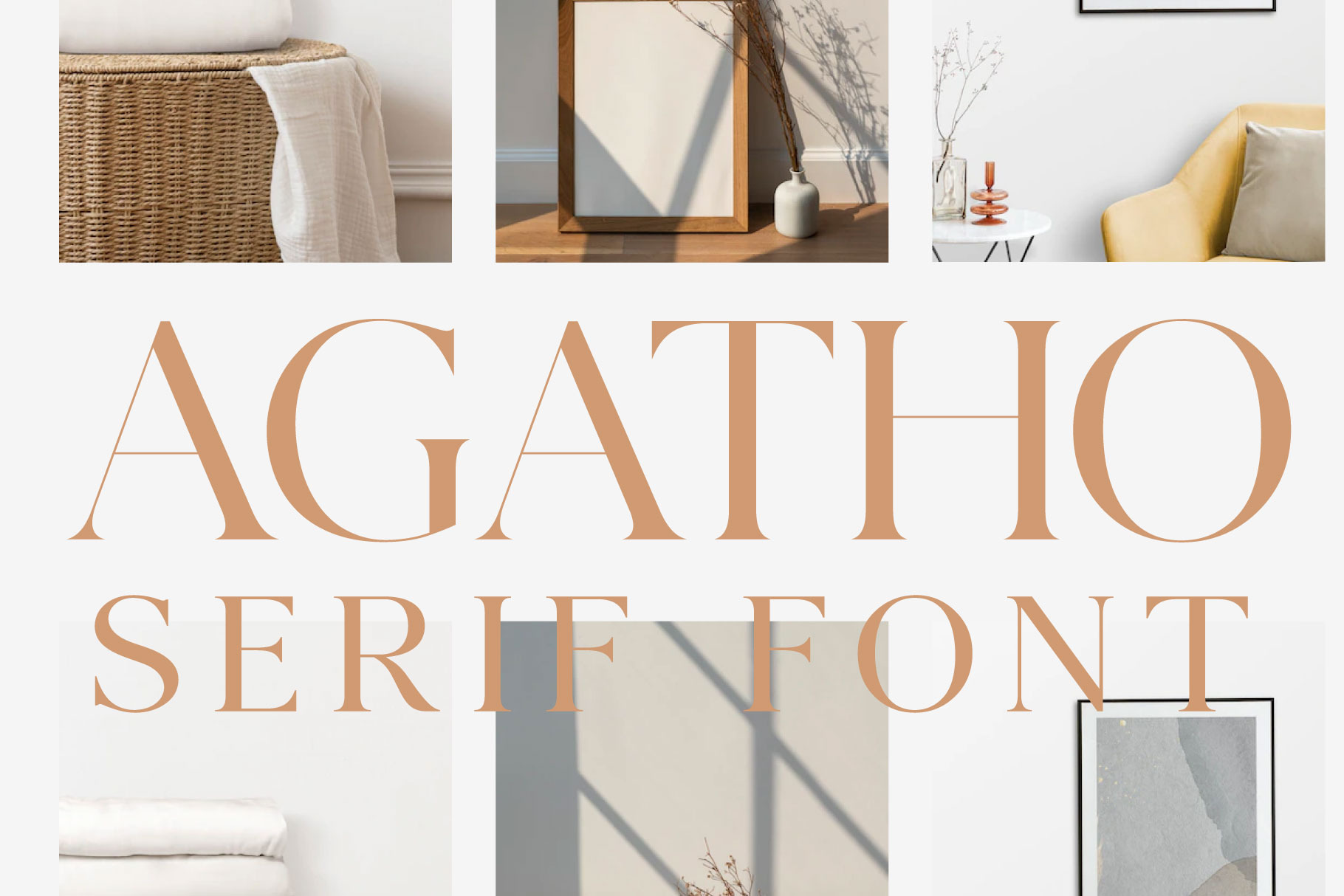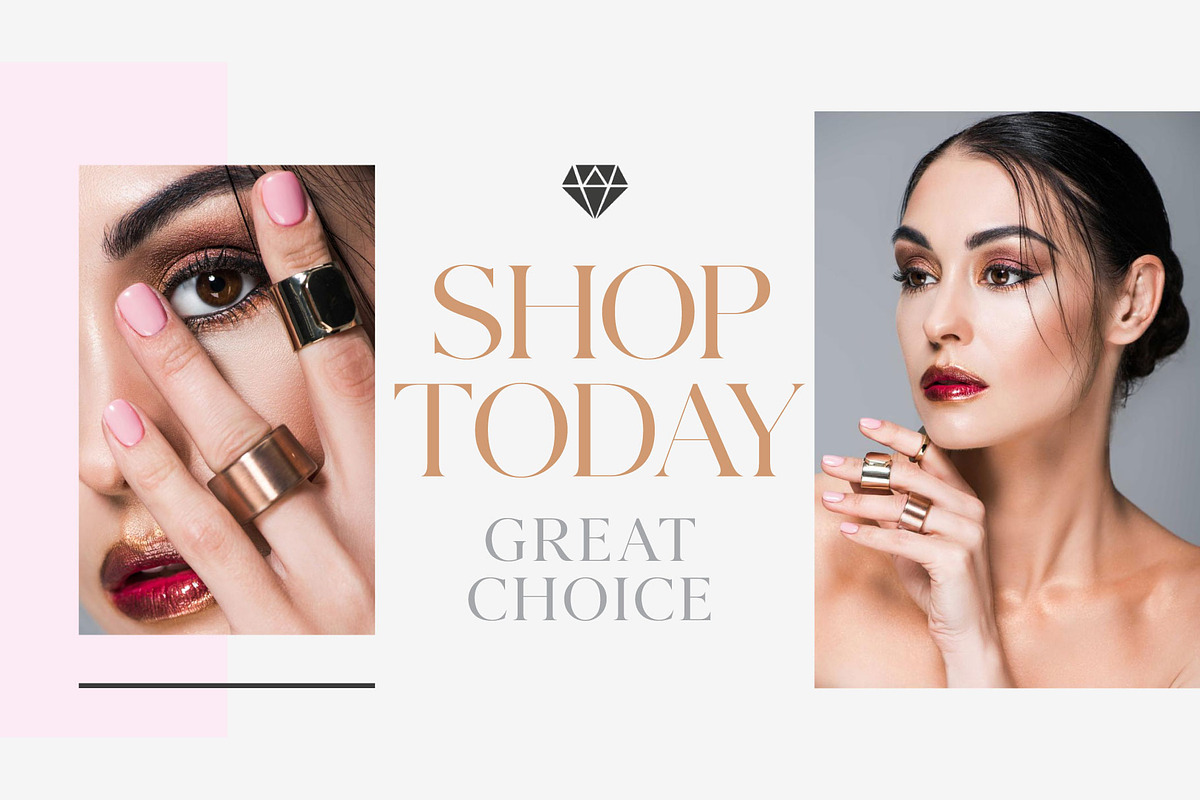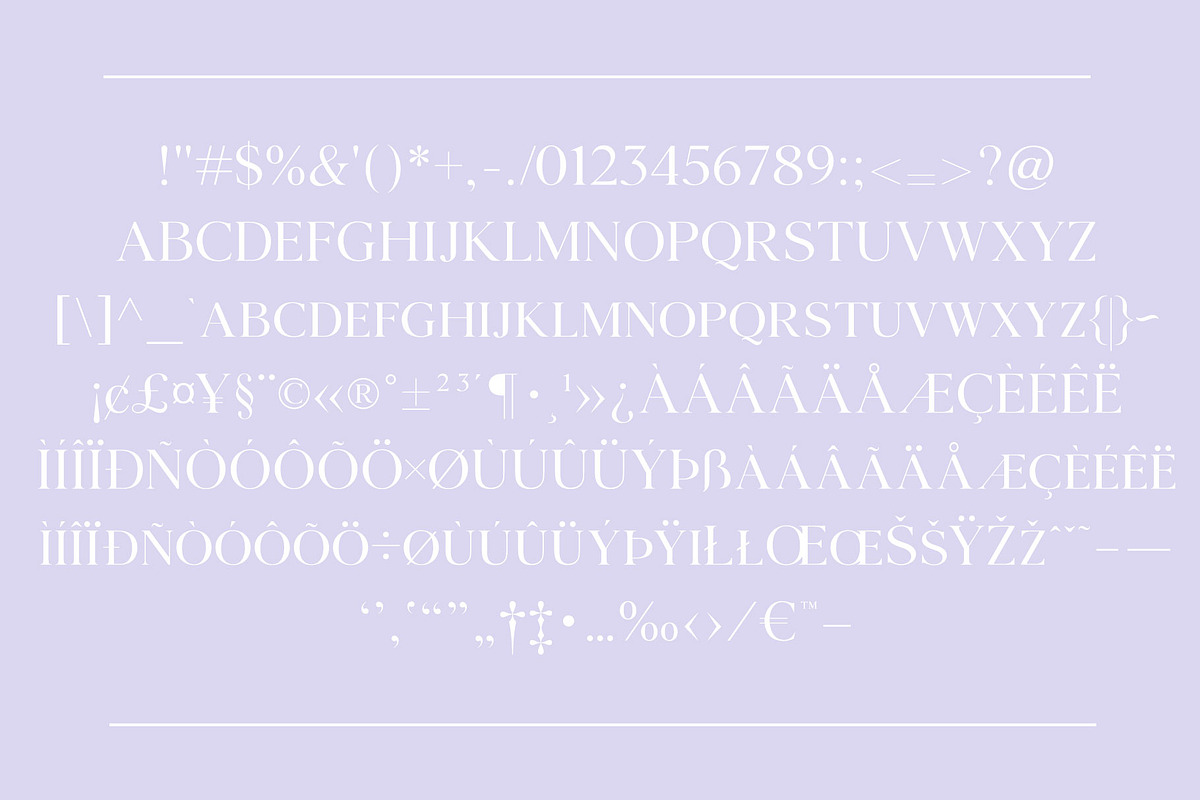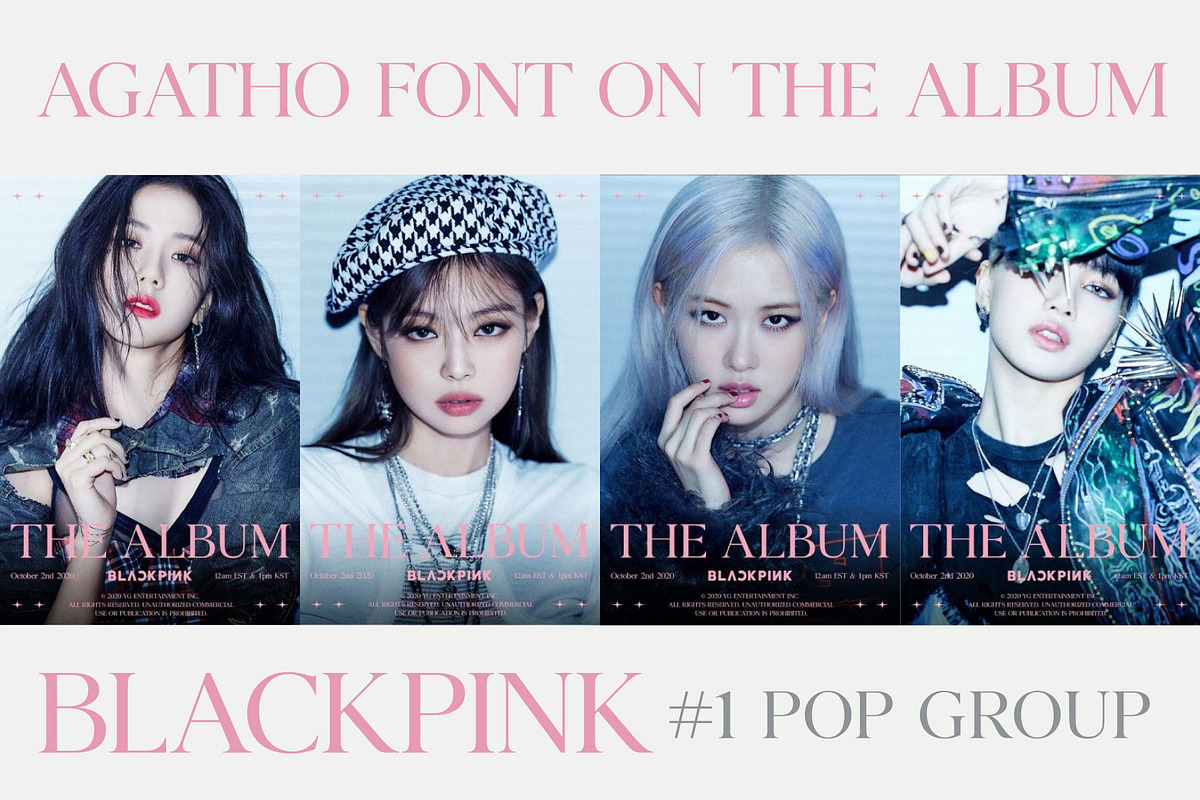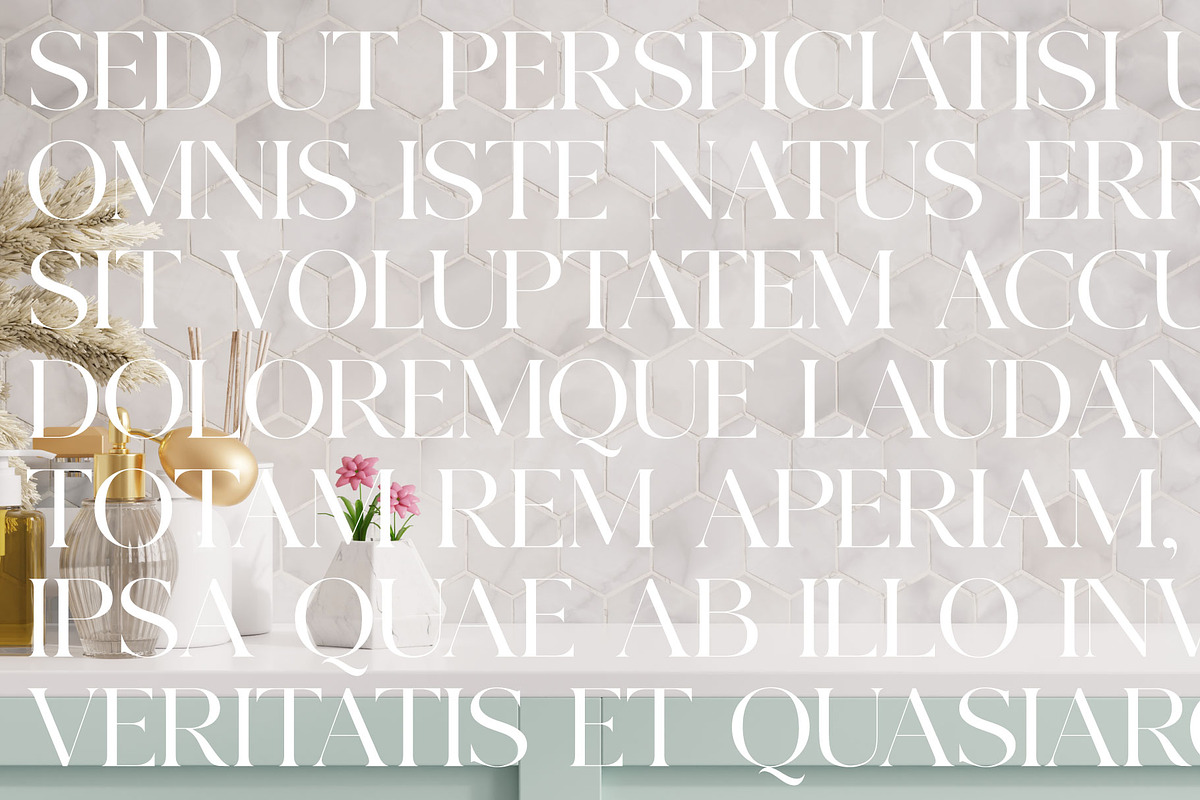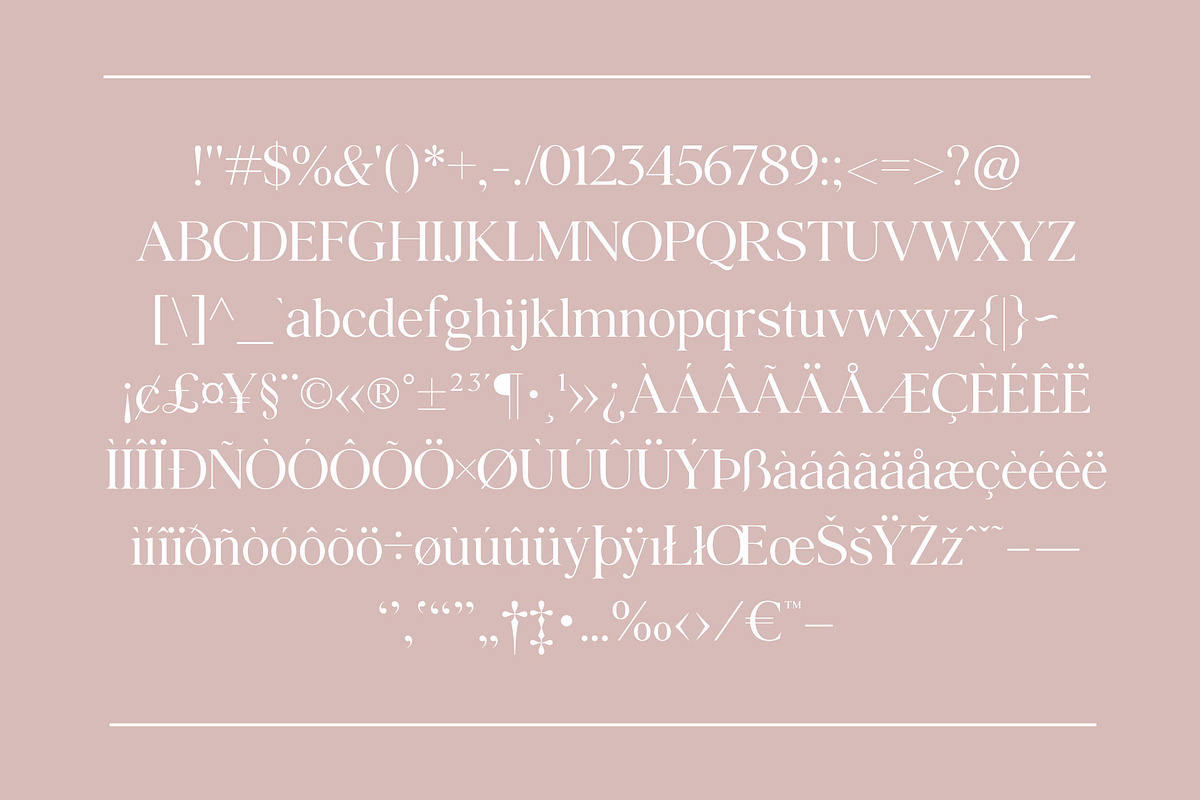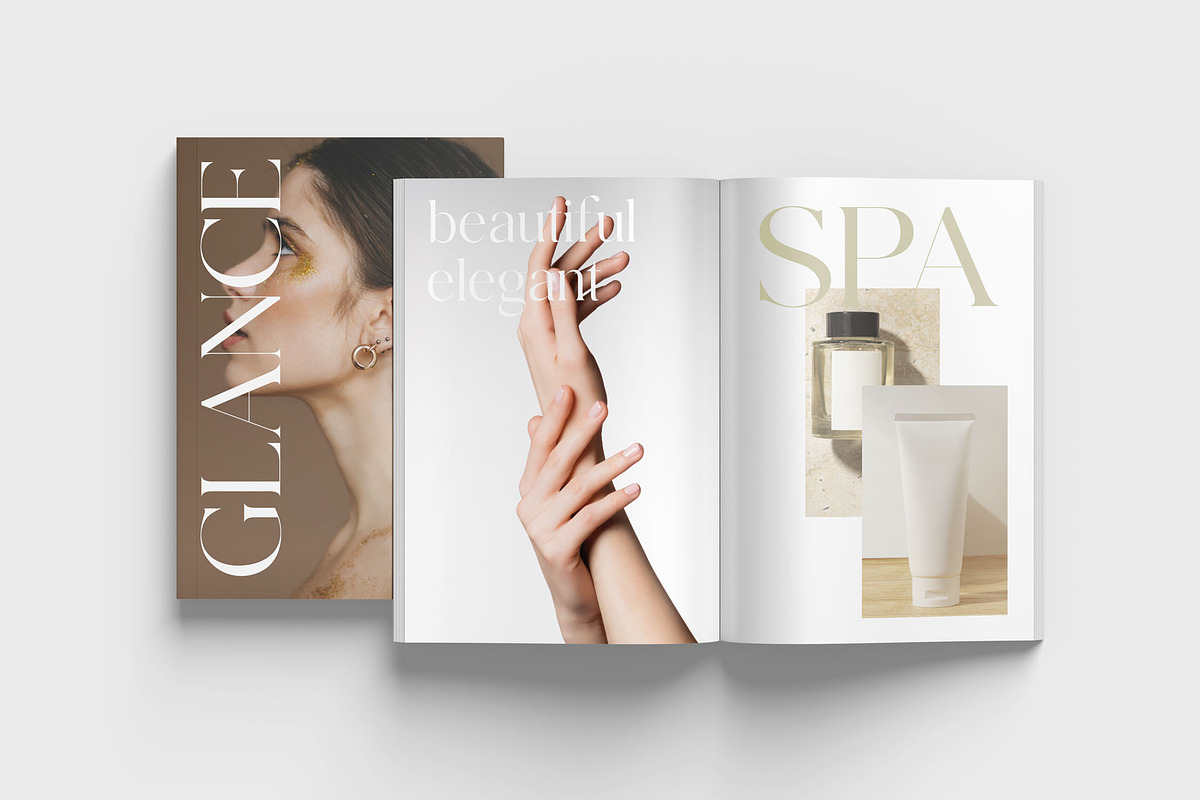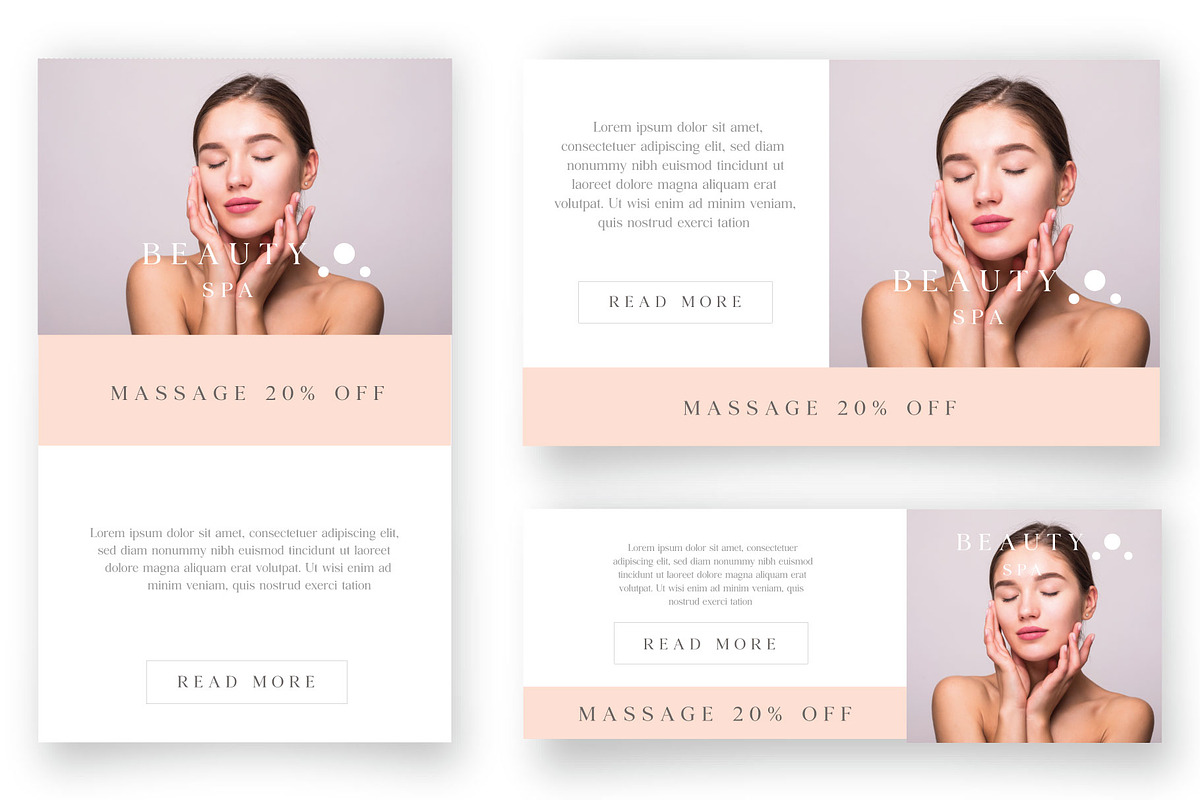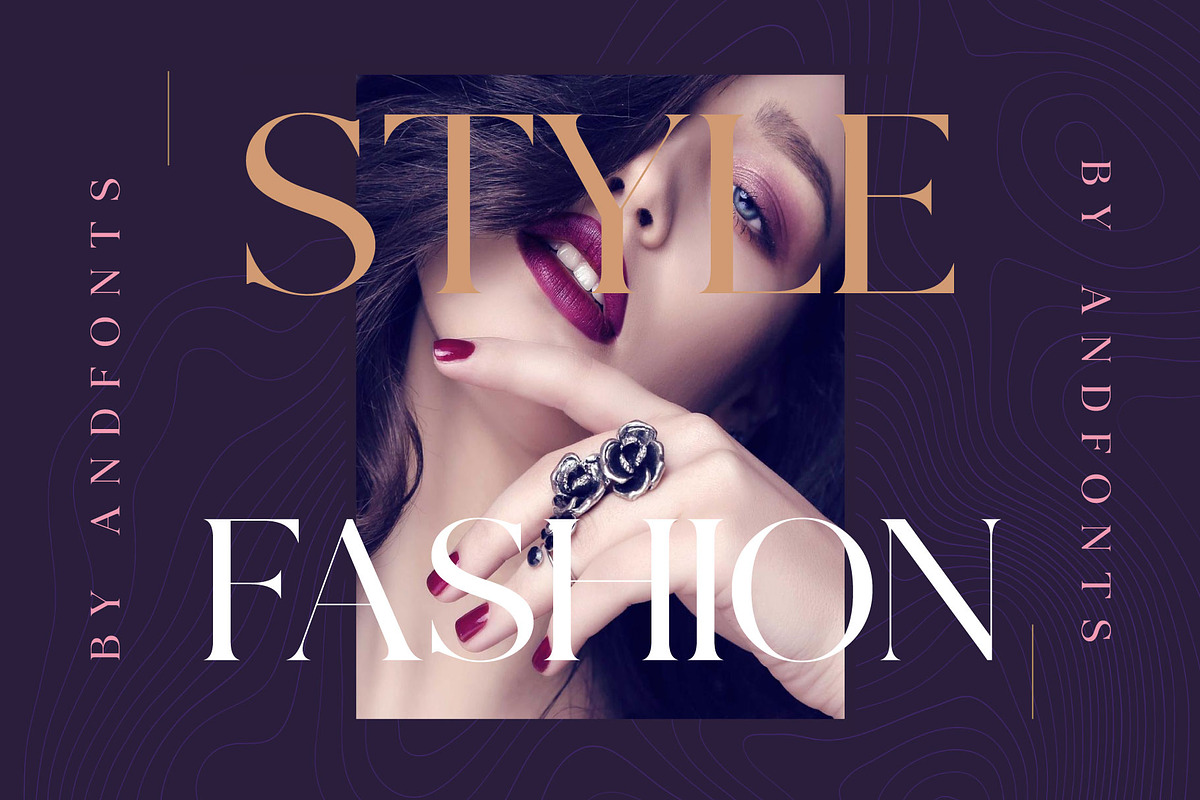
Agatho Serif Font
Agatho is best looking serif font you can find on the market. This font was chosen by world famous BLACKPINK pop group on their first album - THE ALBUM cover and marketing materials. Here is unboxing of THE ALBUM: https://www.youtube.com/watch?v=Z12wtGgByP0
AGATHO is like perfume for the office. This font should be attractive to all people.
Cool, elegant and thin lettered serif font, it can be used for various purposes such as logos, wedding invitations, headings, t-shirts, letterhead, signage, labels, news, posters, badges and so much more.